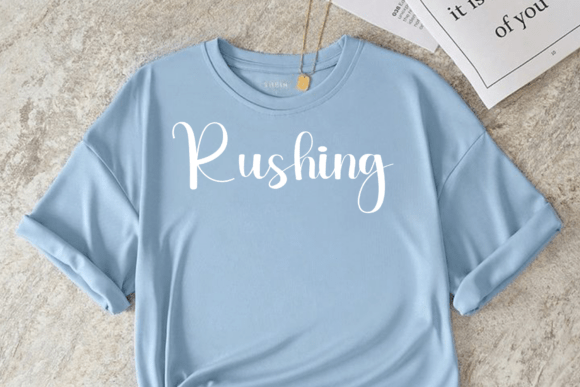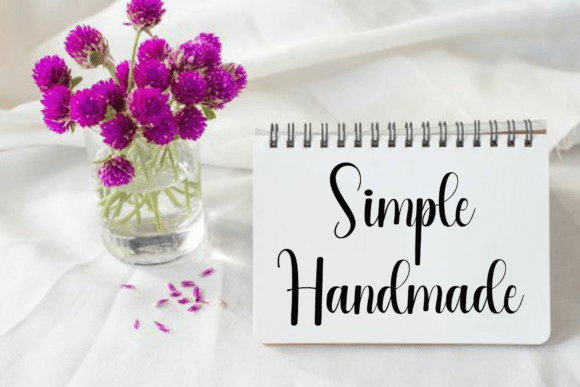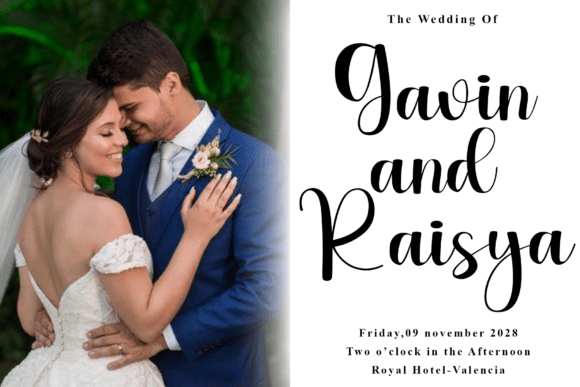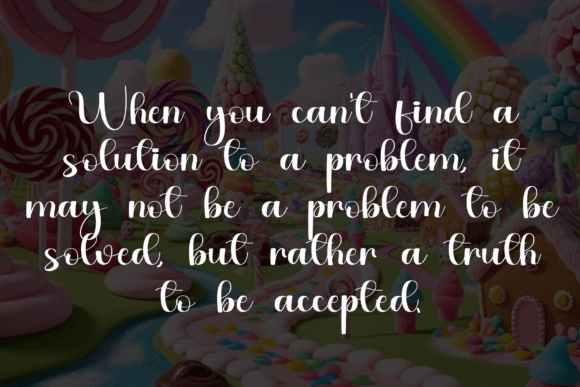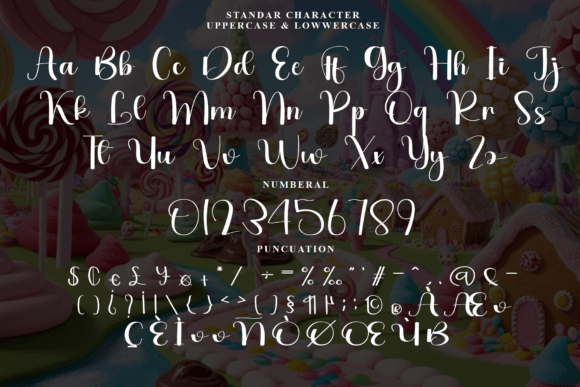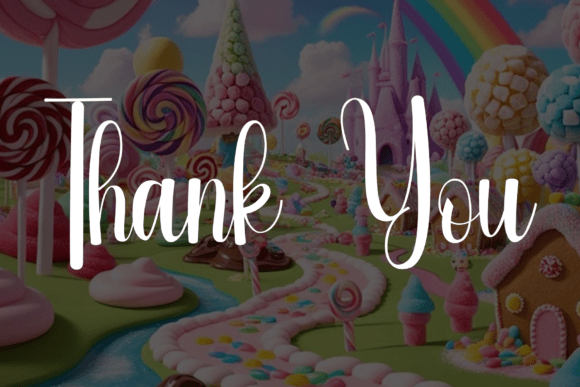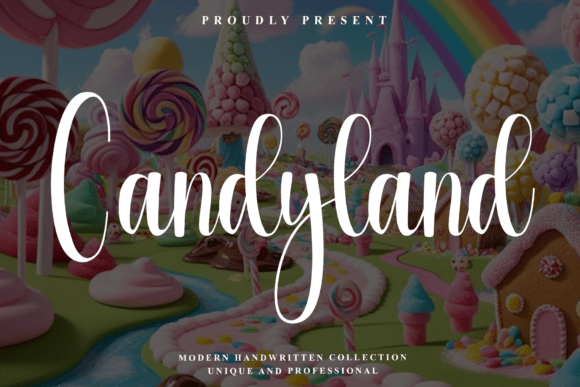
Candyland Font: Elevate Your Design with a Touch of Elegance
In the world of typography, fonts play a crucial role in conveying the tone and personality of a brand or design. For designers and crafters looking for a unique and professional touch, the Candyland Font is an excellent choice. This modern handwritten font is designed to evoke a sense of clarity and crisp elegance, making it perfect for a variety of applications.
The Characteristics of Candyland Font
The Candyland Font boasts tall, thin strokes with a subtle, airy slant, giving it a refined aesthetic that feels fresh and sophisticated. Its clean and approachable style makes it an ideal choice for travel photography, branding for outdoor gear, and sophisticated web design. The font’s unique characteristics set it apart from other fonts, making it a great addition to any design project.
Why Choose Candyland Font?
There are several reasons why designers and crafters should consider the Candyland Font for their next project:
- Unique and Professional: The Candyland Font offers a distinctive and professional look that will elevate your design and set it apart from others.
- Versatile: This font is suitable for a wide range of applications, including travel photography, outdoor gear branding, and web design.
- Clean and Approachable: The font’s clean and approachable style makes it easy to read and understand, ensuring that your message is conveyed effectively.
- Elegant and Sophisticated: The Candyland Font’s elegant and sophisticated design makes it perfect for high-end branding and design projects.
Applications of Candyland Font
The Candyland Font is a versatile font that can be used in a variety of applications, including:
- Travel Photography: The font’s clean and elegant design makes it perfect for travel photography, adding a touch of sophistication to your images.
- Outdoor Gear Branding: The Candyland Font’s outdoor-inspired aesthetic makes it an excellent choice for branding outdoor gear and equipment.
- Sophisticated Web Design: The font’s refined and elegant design makes it perfect for sophisticated web design, adding a touch of luxury to your website.
- Graphic Design: The Candyland Font can also be used in graphic design, adding a touch of elegance and sophistication to your designs.
Tips for Using Candyland Font
To get the most out of the Candyland Font, here are a few tips to keep in mind:
- Use it sparingly: While the Candyland Font is elegant and sophisticated, it’s best to use it sparingly to avoid overwhelming your design.
- Pair it with other fonts: The Candyland Font can be paired with other fonts to create a unique and visually appealing design.
- Experiment with different sizes: The font’s clean and elegant design makes it suitable for use at different sizes, from large headings to small body text.
The Candyland Font is a unique and professional font that offers a touch of elegance and sophistication to any design project. Its clean and approachable style makes it perfect for travel photography, branding for outdoor gear, and sophisticated web design. With its versatile design and wide range of applications, the Candyland Font is an excellent choice for designers and crafters looking to elevate their design.
Get Creative with Candyland Font
Whether you’re a designer or crafter, the Candyland Font is a great addition to your toolkit. With its elegant and sophisticated design, it’s perfect for a wide range of applications. So why not get creative with the Candyland Font and see how it can elevate your design?